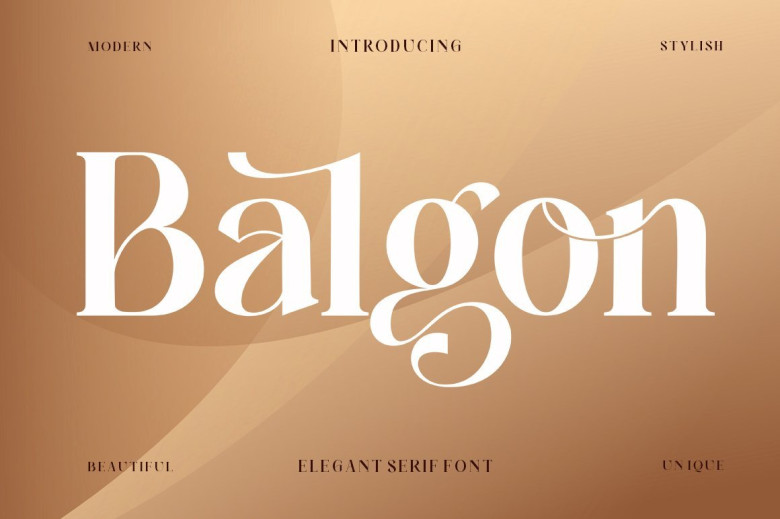
Balgon Font
Balgon Serif This font has a subtle, clean, feminine, sensual, glamorous, simple and very readable typeface. This classic style is perfect to be applied in various formal forms such as Invitations, Labels, Menus, Logos, fashion, make up, stationery, letterpress, romantic novels, magazines, books, greeting / wedding cards, packaging, labels.
In addition, Balgon Serif also features a strong neoclassical serif typeface with high contrast, cool, stylish and unique look with alternative fonts, Ligatures and multilingual support
Balgon Serif Font